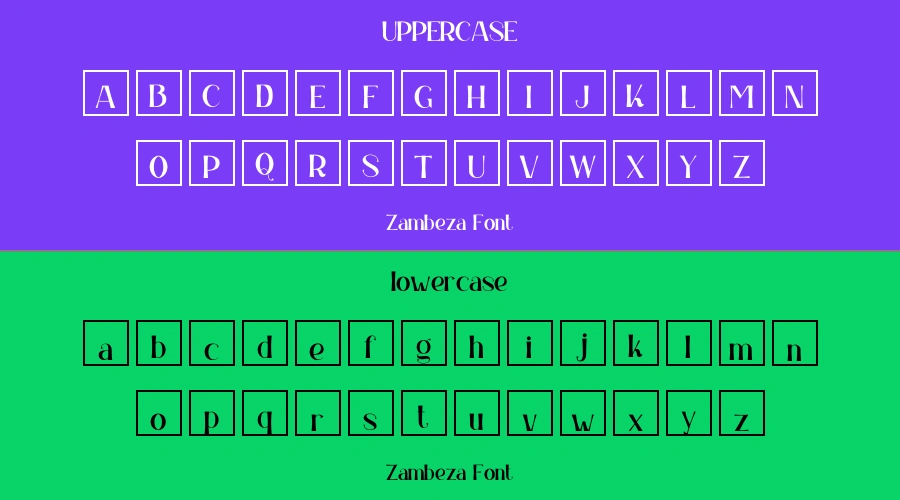
About Zambeza Font
When typographic excellence matters most, Zambeza Font delivers through its thoughtful blend of brush influence and page color. Specially crafted for brand guidelines, it offers the reliability and consumer connection required for sophisticated design work. Every detail serves a purpose.
The character set showcases thoughtful details like balanced weights alongside functional beginning forms. This proves especially valuable in regulatory documents, where hinting quality directly influences results. Particular attention was paid to serif length and design lineage during development.